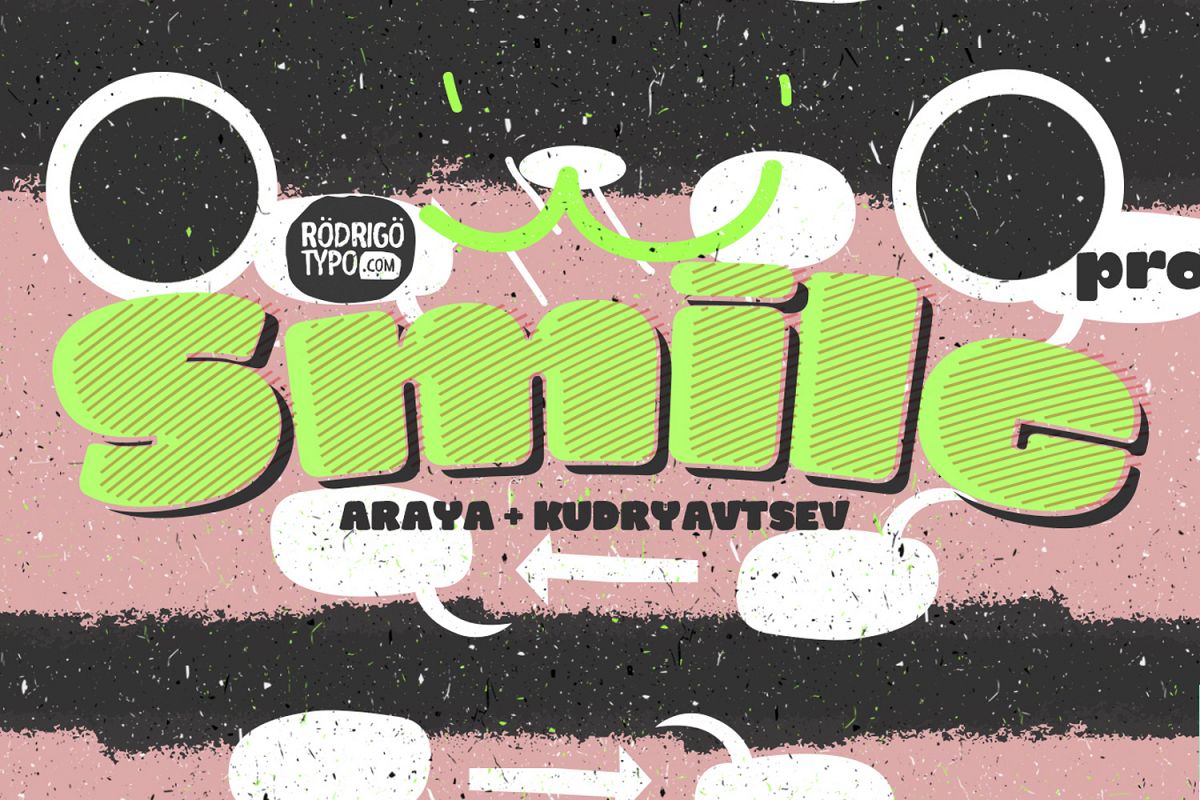
Smile Pro
redesign of "Smile" in 2013, this typeface contains different styles, a heavy sans serif type, especila for children's titles and alphabet Cyrillic.
Smile Pro